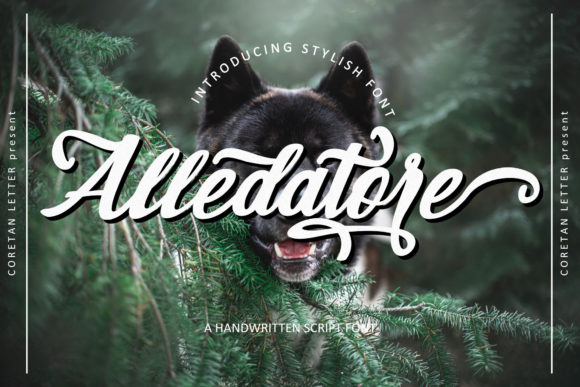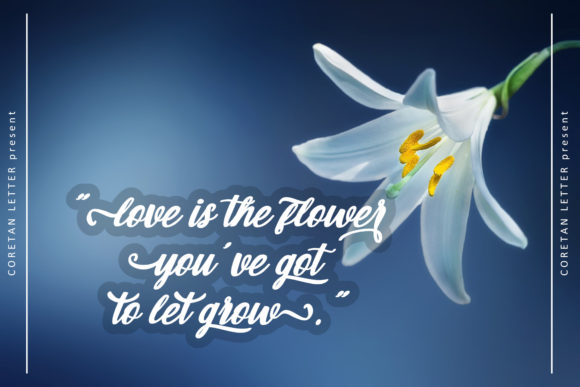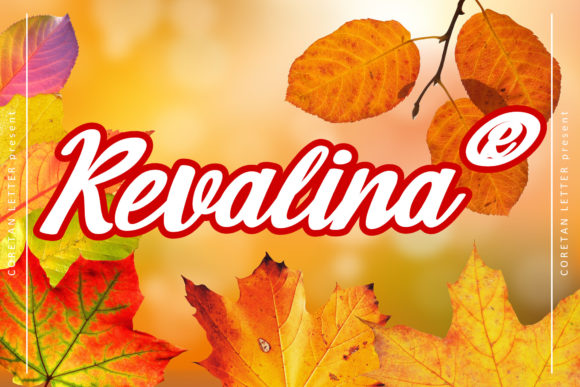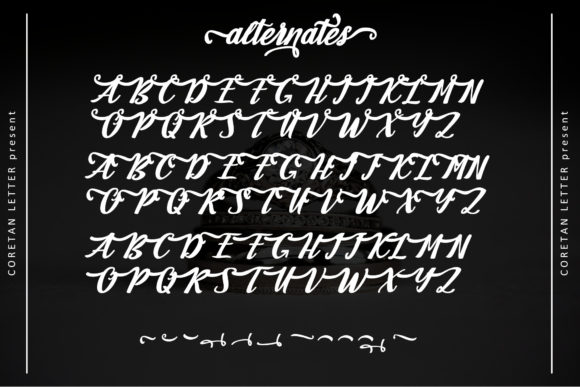
About Alledatore Font
Alledatore is a magical script font carefully created with a touch of elegance. Fall in love with its incredibly versatile style and use it to create spectacular designs! This font is PUA encoded which means you can access all of the glyphs and swashes with ease!